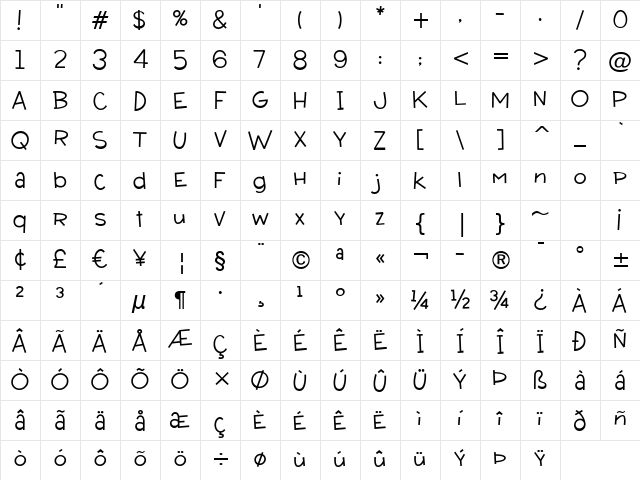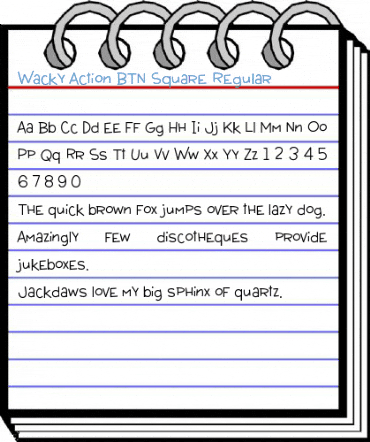
Wacky Action BTN Square Regular
Design Context for Wacky Action BTN Square
Wacky Action BTN Square is a composed and adaptable typeface that performs quietly and consistently across a wide range of design contexts.